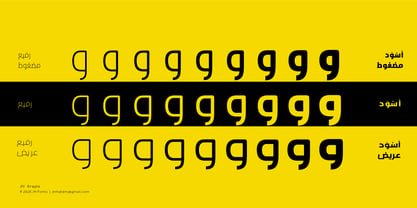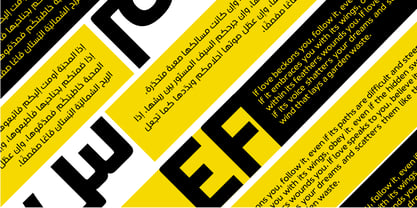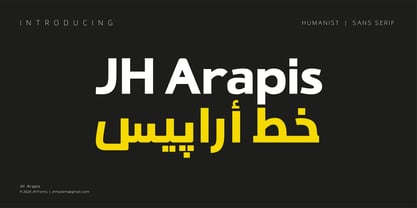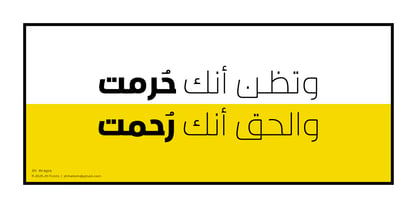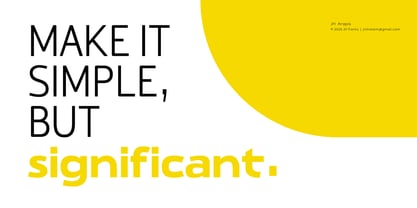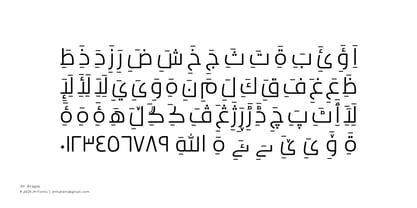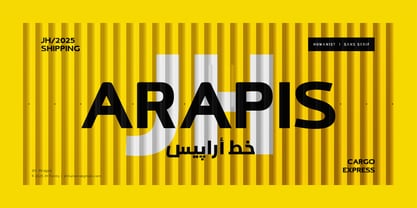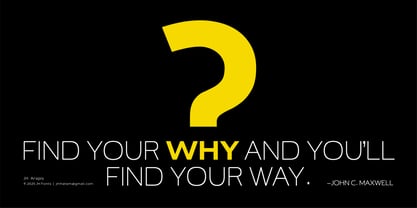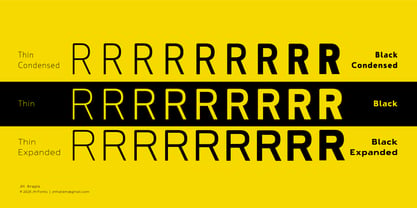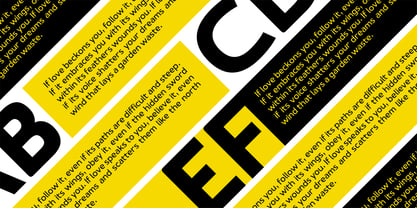
JH Arapis pro
Die Schriftfamilie JH Arapis pro wurde von Joe Hatem entworfen und von JH Fonts veröffentlicht. JH Arapis pro enthält 24 Stile und Familienpaketoptionen. Mehr über diese Familie
JH Arapis Pro is a dual-script humanist sans serif type family designed for Arabic and Latin. It includes eight weights and three widths, offering flexibility for both text and display use. With carefully crafted proportions and refined details, JH Arapis Pro delivers clarity, warmth, and readability, making it suitable for books, headings, branding, and digital experiences.